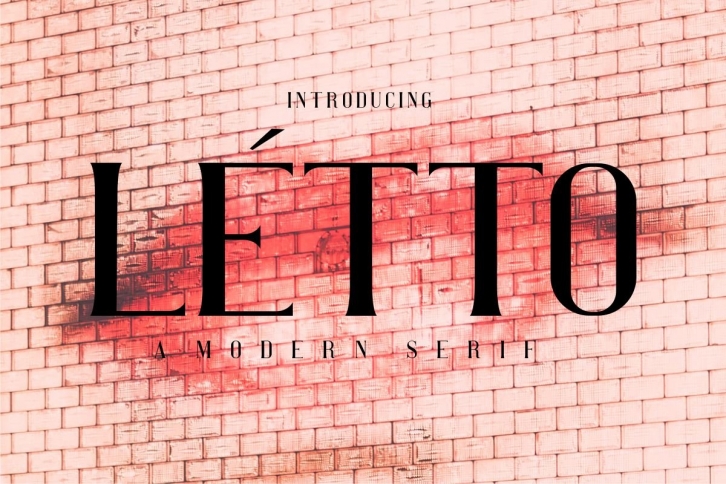
introduce my new font the name is  Letto , Letto a modern and high fashion serif  Letto is all-caps serif typeface regular and italic serif. Perfect for gorgeous logos & titles, Letto serif will pair beautifully with many fonts and great for combination and work well with whatever project you're working on.
- uppercase letters
- numbers & basic punctuation